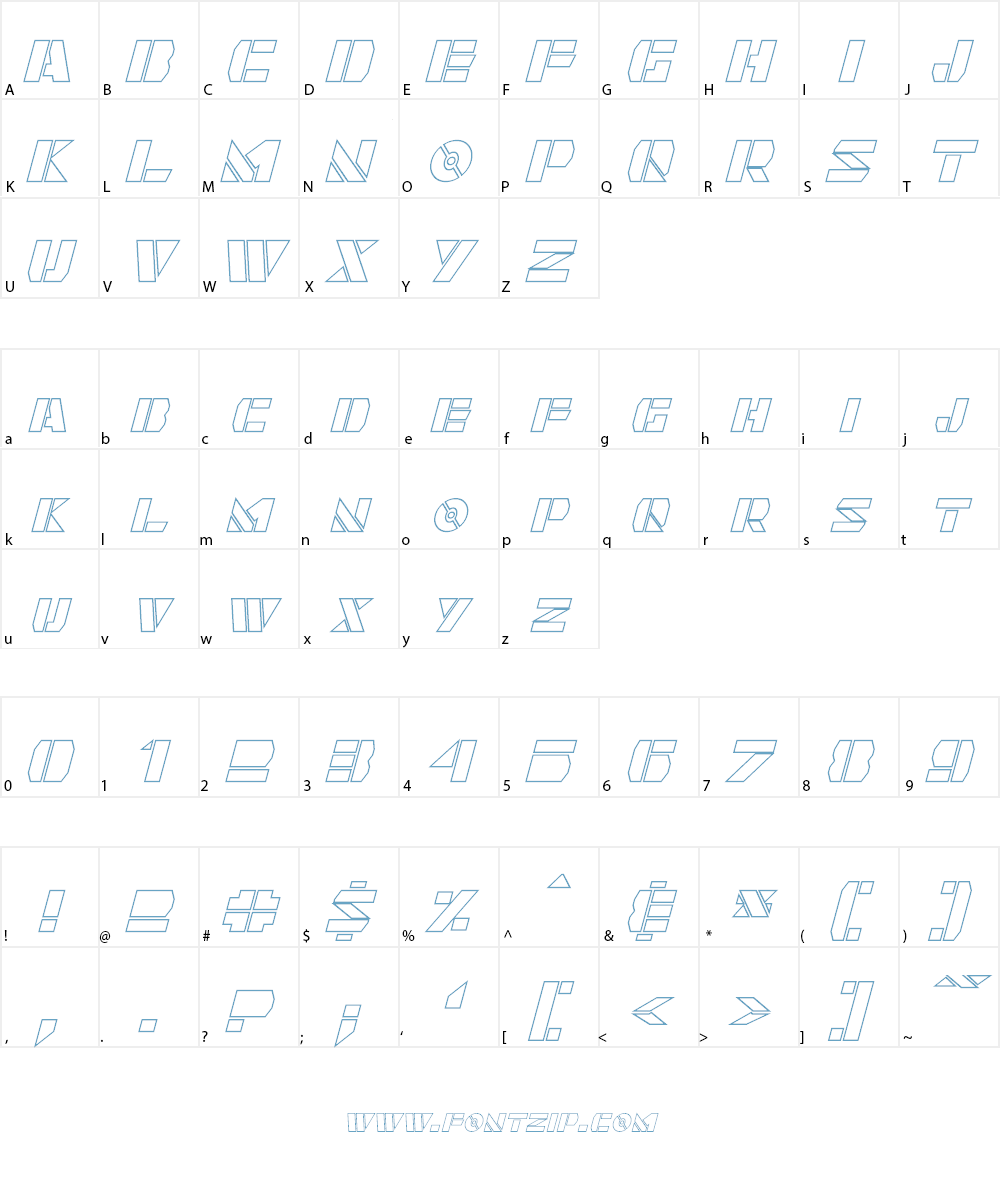
Quintanar is sharp, angular typeface deigned to resemble a science-fiction stencil set. The look is heavily influenced by the covers of R Talsorian’s Mekton II game line from the 1980s. Includes full alphabet, extended punctuation, and Euro. Includes regular, italic, hollow, and hollow-italic weights.